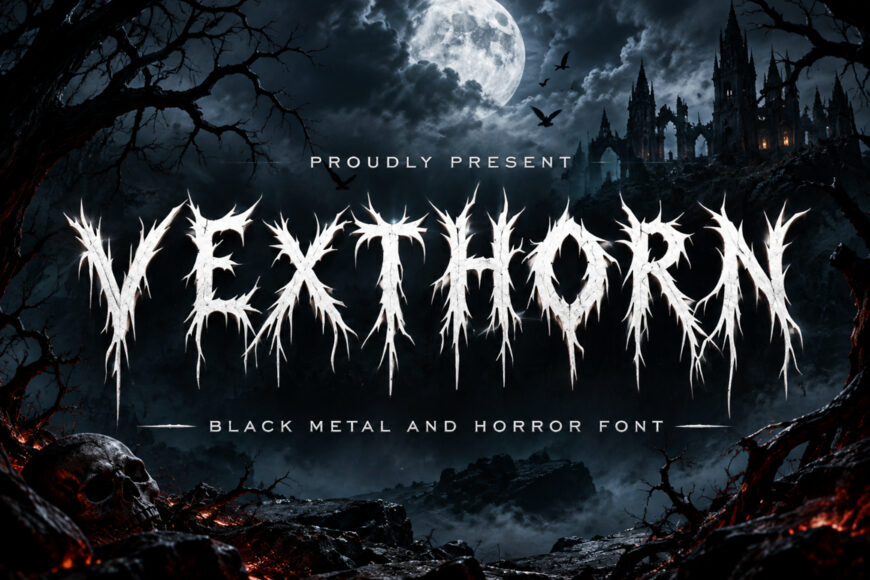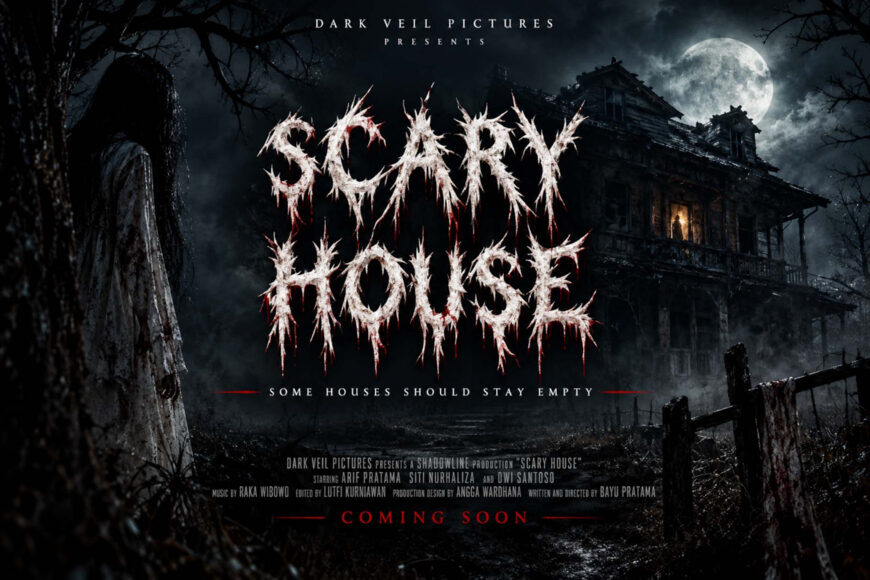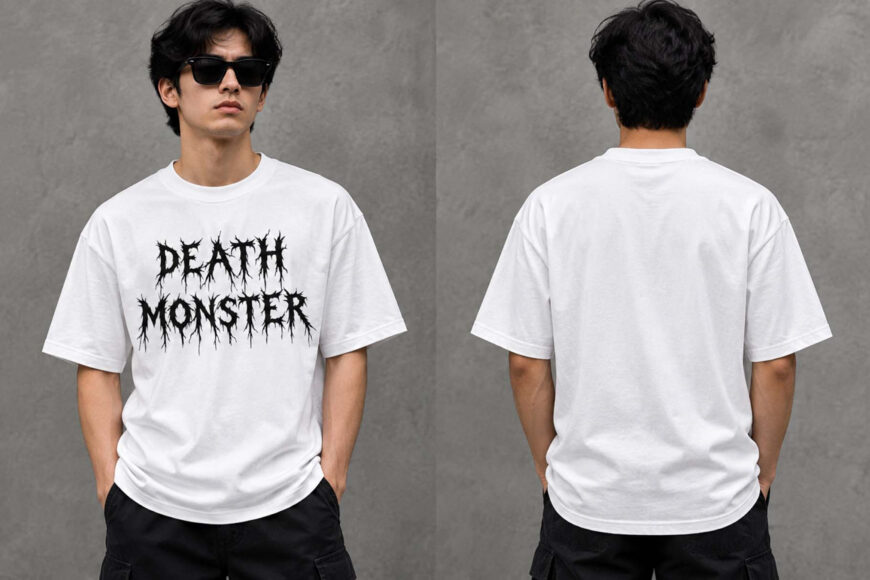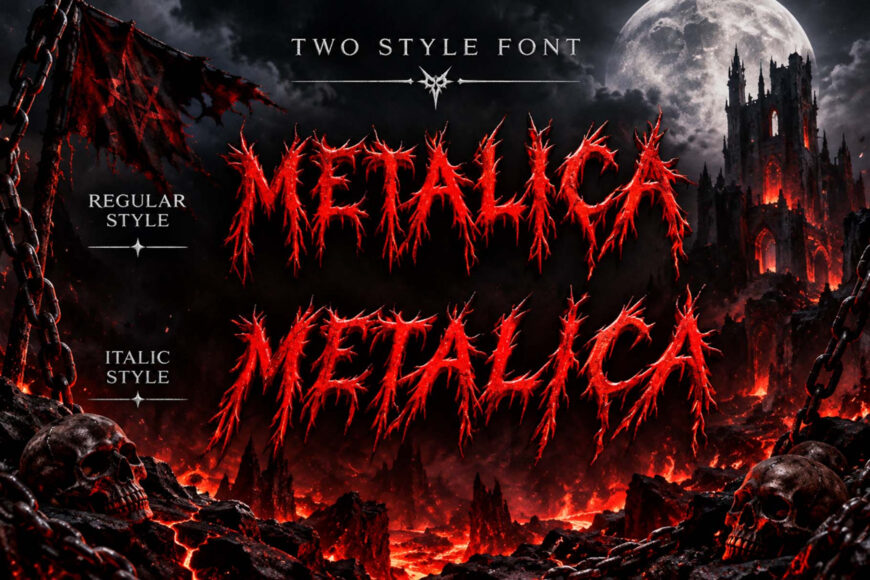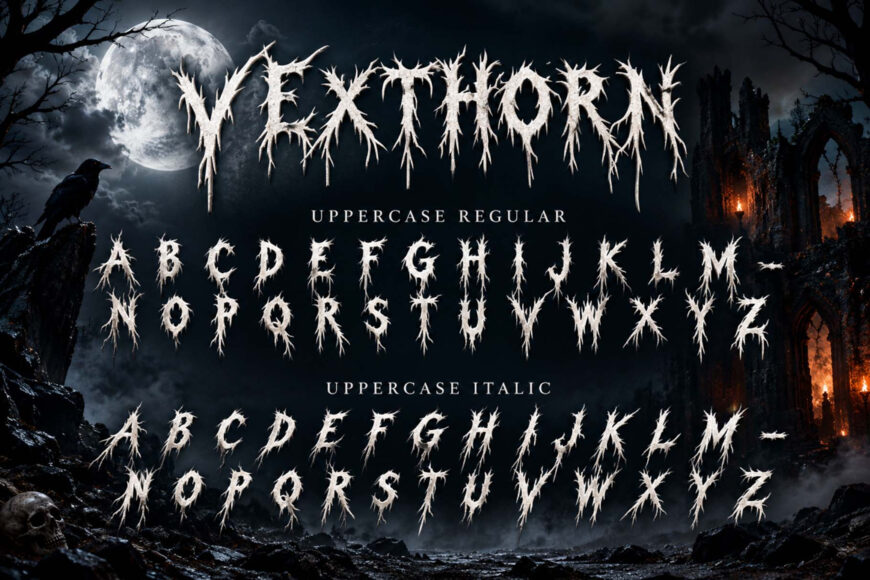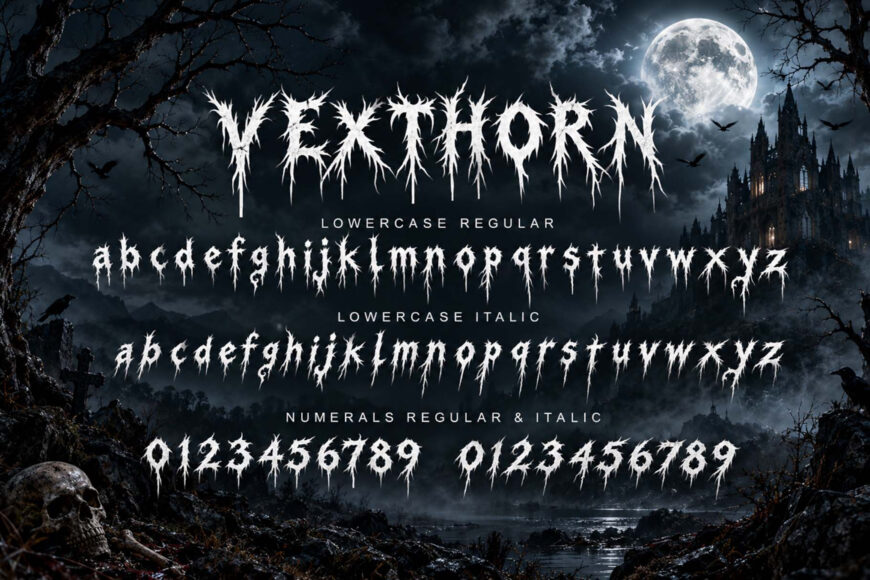
Vexthorn is a powerful and distinctive display font inspired by the dark world of black metal, horror, gothic, and dark fantasy. Its sharp, thorn-like letterforms, dramatic spikes, and rough handcrafted details create an intense and mysterious appearance.
Designed to make a strong visual impact, Vexthorn is perfect for metal band logos, album covers, horror movie titles, Halloween designs, dark fantasy artwork, posters, T-shirts, merchandise, gaming projects, book covers, and edgy branding.